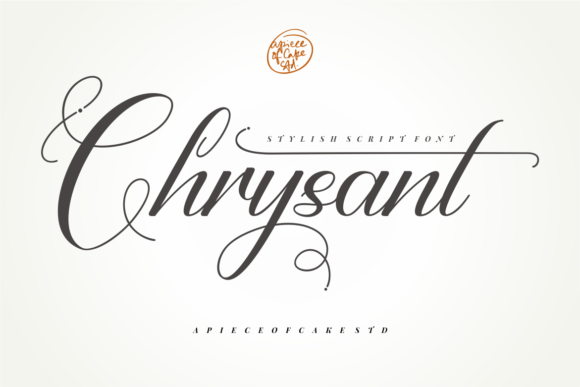
Discover the enchanting Chrysant font, a script typeface that will awaken your creativity. With its captivating curves and delicate flourishes, Chrysant transforms any design into a masterpiece.
Step into a world of imagination, where every letter dances with grace. Chrysant's elegant touch adds a touch of magic to your social media posts, making your Instagram feed a visual feast.
Dive into the realm of DIY projects, where Chrysant's versatility shines. Create breathtaking wedding invitations that will leave a lasting impression. Design greeting cards that convey heartfelt emotions with every stroke.
Unleash your inner artist with Chrysant's versatility. Its enchanting curves lend themselves to stunning logos, branding materials, and packaging that will captivate your audience.
Chrysant's allure goes beyond its visual appeal. Each letter is meticulously crafted to convey a sense of authenticity and warmth. It's as if the ink itself whispers a story, inviting you to explore the depths of your creativity.
Whether you're a seasoned designer or just starting your creative journey, Chrysant is the perfect font to elevate your projects. Its user-friendly nature makes it accessible to all, empowering you to create designs that will turn heads and leave a lasting impression.
Embark on a creative adventure with Chrysant. Let its enchanting script guide your imagination to new heights. With every stroke, you'll weave a tapestry of beauty that will inspire and captivate.